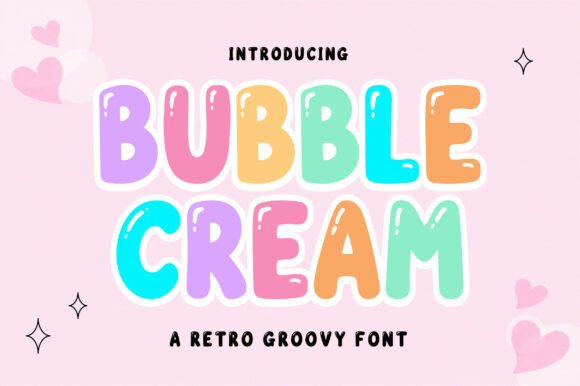
Bubble Cream: A Retro Bubble Display Font for Marketing
When every pixel counts in a social feed, the right typography can stop a thumb mid-scroll. Bubble Cream isn’t just another decorative letterform—it’s a playful, glossy, and instantly recognizable display font that wraps marketing messages in a soft, cheerful layer of nostalgia. Its rounded shapes and subtle highlight details mimic the look of shiny bubbles, making it a go-to choice for creators who need to inject warmth and personality into digital content without sacrificing clarity.
As a marketing specialist who builds campaign visuals daily, I reach for typefaces that do more than look nice. They must reinforce a brand’s tone, guide the viewer’s eye, and make a split-second impression. Bubble Cream delivers on all three. In this piece, I’ll walk through how this premium font can become a workhorse in your visual toolkit—from Instagram carousels and YouTube thumbnails to email headers and limited-time offer banners.
Why Bubble Cream Stands Out in Digital Campaigns
Most display fonts fall into two camps: too loud and chaotic, or too subtle to matter. Bubble Cream occupies a sweet middle ground. The letterforms are thick enough to hold their own on a busy background, yet the rounded terminals and gentle bulges keep the mood light and approachable. The glossy highlight effect, often built into the glyphs, adds a dimensional, candy-like finish that feels intentionally crafted rather than gimmicky.
This typeface taps into the retro aesthetic that continues to dominate brand identity work. Think soda shop signage, vintage candy wrappers, and 70s bubble lettering—but refined for modern digital screens. For social media managers and campaign designers, that means you get a creative font that triggers familiarity while staying fresh. It’s the kind of font that makes a viewer smile before they even read the words, and that emotional hook is invaluable in a crowded content landscape.
Where Bubble Cream Shines Brightest in Social Media Visuals
Because of its bold, inflated silhouette, Bubble Cream works best as a hero typeface for short text bursts. It’s not meant for body copy or lengthy descriptions—and that’s exactly why it excels in the formats listed below.
Instagram Posts and Reels Covers
On Instagram, the feed moves fast. A social media graphics asset without a strong focal point gets lost. Setting a keyword or phrase in Bubble Cream—like “SALE,” “NEW,” “FREEBIE,” or “YOU ASKED, WE MADE IT”—instantly creates a visual anchor. Pair it with a clean solid background or a soft blurred photo, and the text leaps forward. For Reels covers, where the text appears small in the grid, Bubble Cream’s generous weight and rounded shapes stay legible even at thumbnail size.
YouTube Thumbnails and Video Titles
Thumbnails are branding billboards. A few words in Bubble Cream can become the signature look for a content series. Whether you’re doing a weekly vlog, a product review, or a tutorial, the font’s glossy aesthetic adds a touch of editorial design flair that feels more curated than standard bold Impact-style fonts. Use it for the main emotive word—like “REVEALED,” “SECRET,” or “WOW”—and let a smaller sans serif font handle the supporting text.
Email Headers and Landing Page Hero Text
Email marketing relies heavily on hero graphics to set the tone. Bubble Cream turns a routine “Spring Collection Inside” into a delightful, almost tactile announcement. Because the font carries its own visual texture, you don’t need excessive background illustration or busy patterns; the type itself becomes the decorative element. On web design landing pages, using Bubble Cream for a hero headline above a CTA button adds that playful nudge that encourages clicks on promos, giveaways, or event sign-ups.
Pinterest Pins and Branded Templates
Pinterest is a discovery engine where aesthetic consistency wins. A pin with a quote, recipe title, or checklist header set in Bubble Cream stands out among more conservative typography. The font’s cheerful, non-aggressive personality aligns well with lifestyle, parenting, food, and craft niches. Designers who create branded templates for their Canva shops or client kits often use this style of handwritten font or bubble type to build a recognizable template collection that users instantly associate with a specific mood.
Building Visual Hierarchy and Brand Recognition with Bubble Cream
Strong visual hierarchy means viewers know where to look first, second, and third. Bubble Cream naturally commands the top spot. Its inflated volume and glossy sheen create a natural headline weight that separates it from any secondary text. When you use it consistently across platforms—YouTube thumbnails, Instagram stories, blog feature images—you start to build a visual signature. Over time, audiences connect that squishy, bubbly lettering with your brand’s voice.
For small business marketing teams, this consistency is gold. A brand identity doesn’t stop at a logo; it extends to the fonts you choose for every promotional graphic. Bubble Cream’s distinct personality means it’s less likely to be confused with other generic display typefaces. It can serve as an occasional accent for a more serious brand wanting to soften a campaign, or as a primary campaign font for a brand that lives in the playful, vibrant space full-time.
The next time you’re staring at a design draft that feels visually flat, replace the headline with Bubble Cream and watch the personality shift instantly. That subtle curve, that gentle highlight—it’s a small change that signals you don’t take yourself too seriously, and in a digital world full of hard sells, a little softness goes a long way.